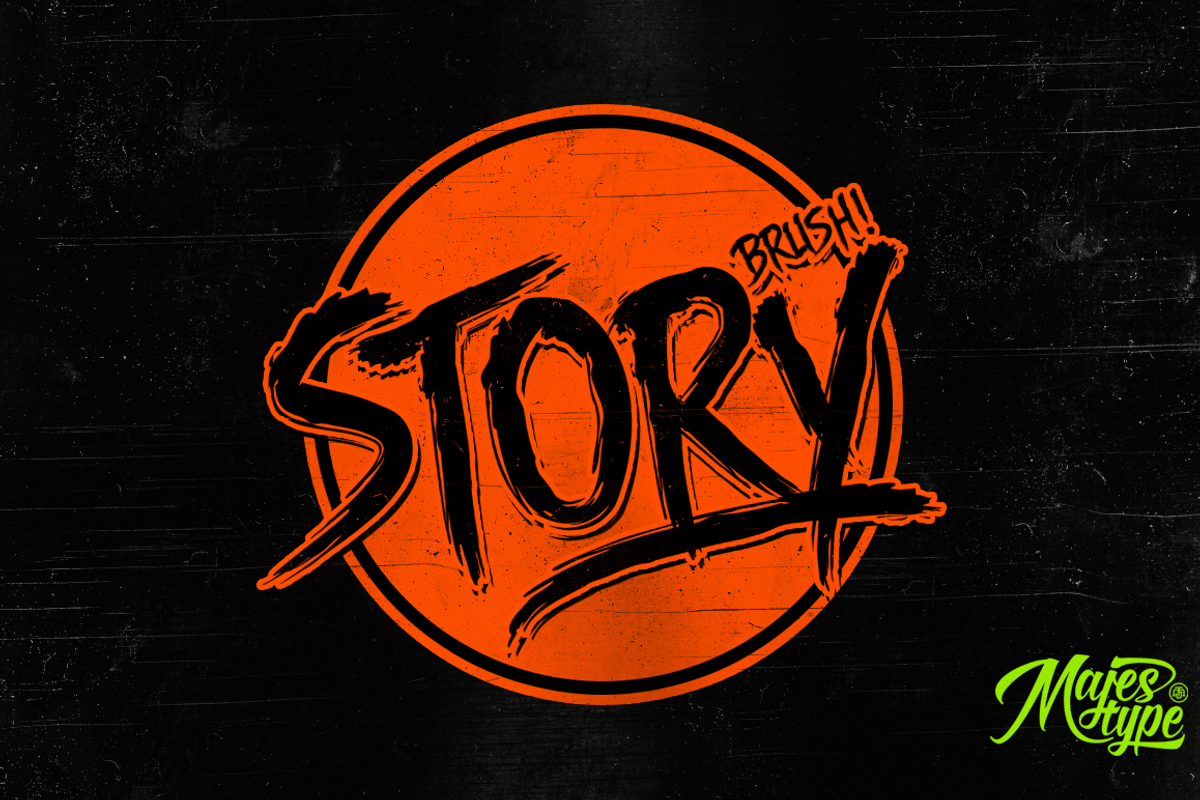
Story Brush + Webfonts - Brush Font Free Download
Story Brush + Webfonts - Brush Font Free Download is a dynamic and expressive brush script typeface designed to add a natural, hand-painted feel to your designs. With its fluid brush strokes and artistic flair, this font is perfect for projects that require a creative, energetic look, such as branding, logos, posters, social media graphics, and more. The addition of webfonts makes it versatile for both digital and print applications.
Whether you're creating content for a creative brand, designing an event poster, or developing a unique website, Story Brush brings a personalized, handcrafted touch to your typography.